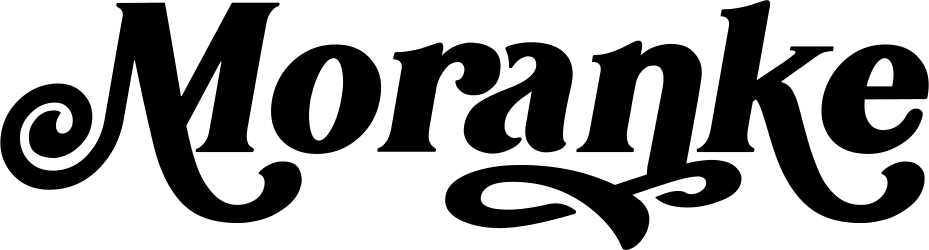
Moranke Font
If you’re working on a big project that needs to be a hundred percent successful, download Moranke and put up a great show. This fashion font with its round style, simply works wonders once applied to signages, logos, advertisements, magazine or book covers, or else. Decorated with additional swashes and further curves, Moranke is best for creating a professional yet utterly approachable image of yourself.